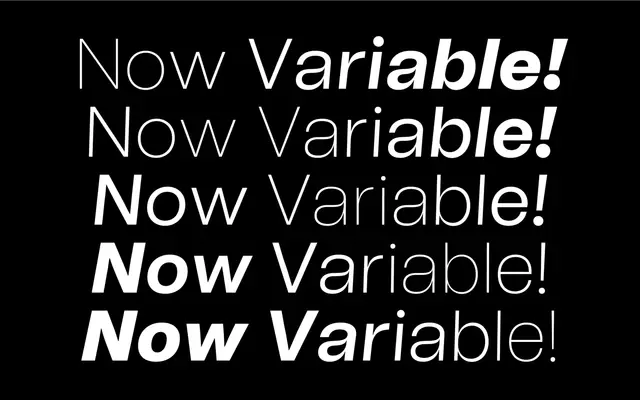
Tomato Grotesk specimen from The Designers Foundry
A modern geometric grotesque with pronounced stroke contrast and ink traps, available in nine weights with matching slanted cuts and a variable font.
Built around simple geometric shapes, Tomato Grotesk distinguishes itself through high contrast and tight spacing that holds up in small print and on screen. Ink traps reinforce its usability at small sizes, while at large dimensions the same features give it a lively, expressive quality suited to display work. The family spans 18 static styles plus a variable version, with an extensive OpenType feature set including stylistic alternates, ligatures, fractions and superiors, covering a broad Latin character set of over 800 glyphs.
Described explicitly as a modern grotesk with geometric shapes and accentuated contrast; the high-contrast strokes and ink traps give it a display-leaning character uncommon in pure geometric grotesques.